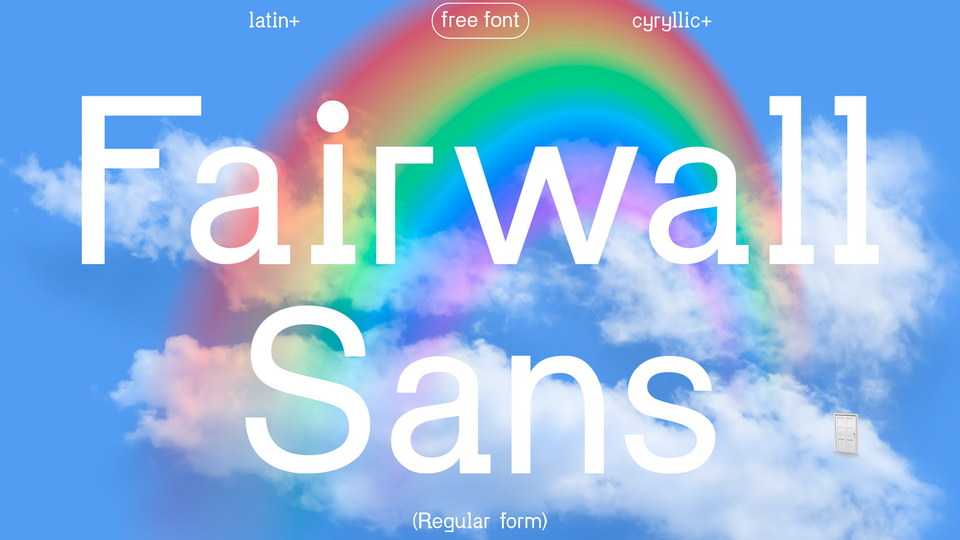
Download Fairwall Sans, a font built on a geometric structure and infused with elements from traditional grotesque typefaces. With its unique appearance, Fairwall Sans is perfect for display and editorial use, typographic artworks.